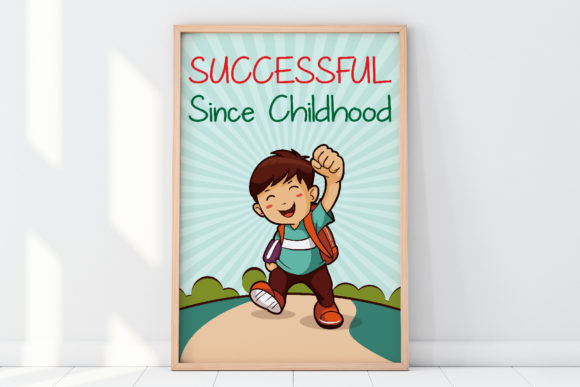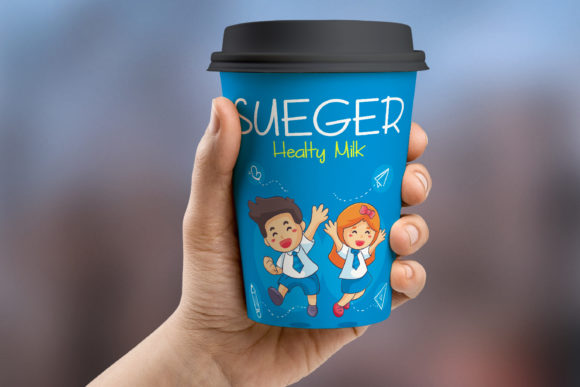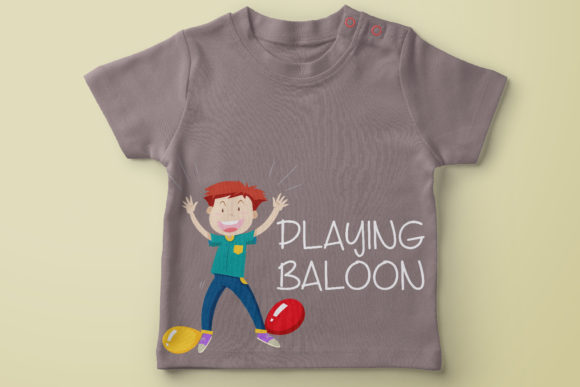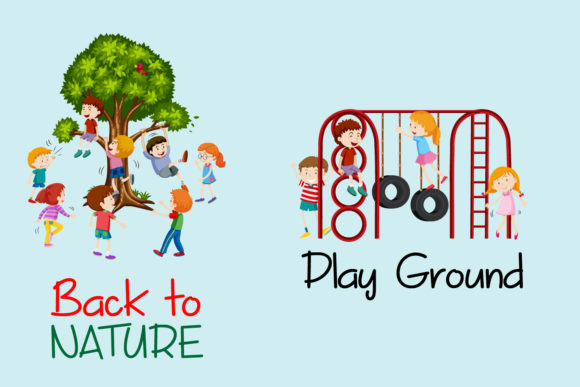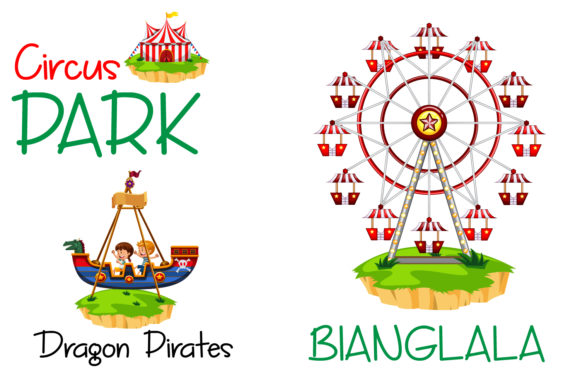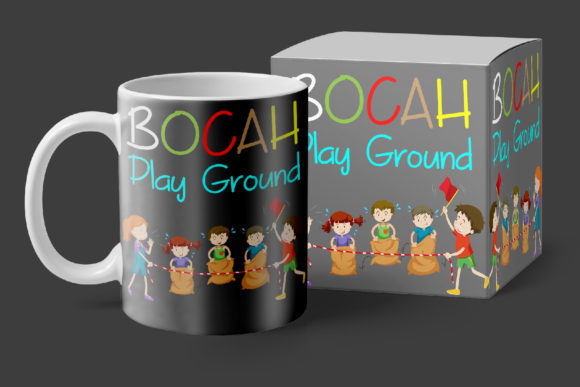
Introduction to Risole Font
Do you remember the feeling of rummaging through your grandma’s attic, uncovering a treasure trove of old holiday cards and decorations? For many of us, it’s a nostalgic moment that sparks creativity and inspires new ideas. As a designer, I’m always on the lookout for unique elements to elevate my projects, and that’s where the Risole Font comes in.
This handcrafted typeface is a game-changer for anyone looking to add a touch of personality to their holiday-themed crafts. With its cool style and high-quality design, the Risole Font is a valuable resource for designers seeking to create something truly special. Whether you’re working on a festive card, a seasonal website, or a handmade gift, this font is sure to bring a smile to your face and a touch of magic to your project.
Key Features of Risole Font
- High-quality design resource with a unique, elegant style
- Transparent background, ideal for use in creative projects and designs
- High-resolution font, suitable for print and digital use at 300 DPI
- Supports a wide range of languages, making it a great option for international projects
- Designed to be highly legible, with a clear and easy-to-read font face
Honest Review: Risole Font
I recently stumbled upon the Risole Font, and I must say it’s a gem in the world of design resources. With its sleek and modern design, it’s perfect for any creative project that requires a touch of sophistication.
Here are some things that work well with the Risole Font:
- ✨ High-quality design that’s perfect for professional projects
- ✨ Suitable for a variety of design styles, from minimalism to maximalism
- ✨ Great for use with a transparent background, allowing for a clean and modern look
- ⚠️ Limited character set, which may not be suitable for longer texts
- ⚠️ Not as versatile as some other fonts, which may limit its use in certain design contexts
Overall, I’m impressed with the Risole Font. It’s a solid addition to any designer’s toolkit, and its free download option makes it an attractive choice for designers on a budget. While it may have some limitations, its high-quality design and versatility make it a great choice for many creative projects.
Risole Font
Tips for Getting the Most Out of Risole Font
To get the most out of the Risole Font, use it with a transparent background to create a unique design element. You can also use it in combination with other fonts to create a visually appealing design.
The Risole Font is commonly used in creative projects such as logo design, branding, and graphic design. Its high-quality design makes it a popular choice for designers who want to create a professional-looking design.